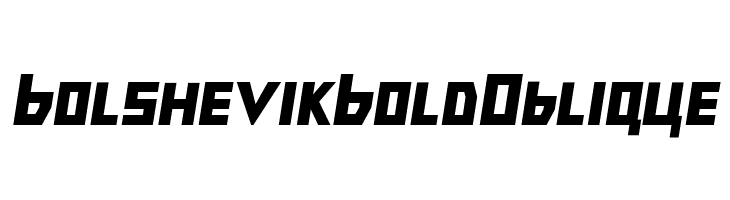
Bold, oblique font with geometric shapes and angular lines.
A bold, geometric font with a modern, blocky design.
A bold, geometric font with an oblique slant and sharp angles.
A bold, oblique font with a geometric, industrial style.
A bold, geometric font with sharp edges and a modern industrial style.
A bold, geometric oblique font with sharp angles and a modern aesthetic.
A bold, geometric font with sharp edges and a modern, industrial style.
A bold, geometric, and oblique font with sharp angles and a modern look.
A bold, geometric font with a modern, industrial aesthetic.
A bold, geometric oblique font with sharp angles and clean lines.